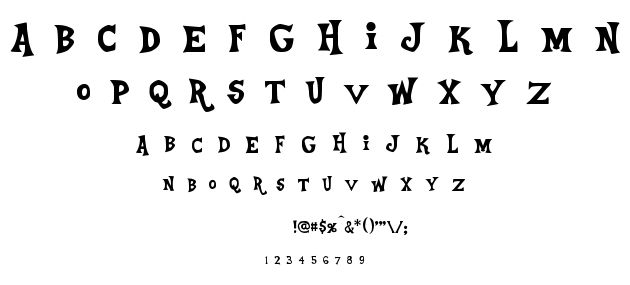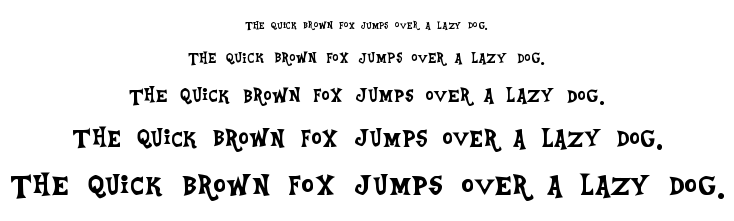
Equestria Based on the package logos for the My Little Pony Line. Thanks to purpletinker for their effort on their version. (Some glyphs were based on that version)